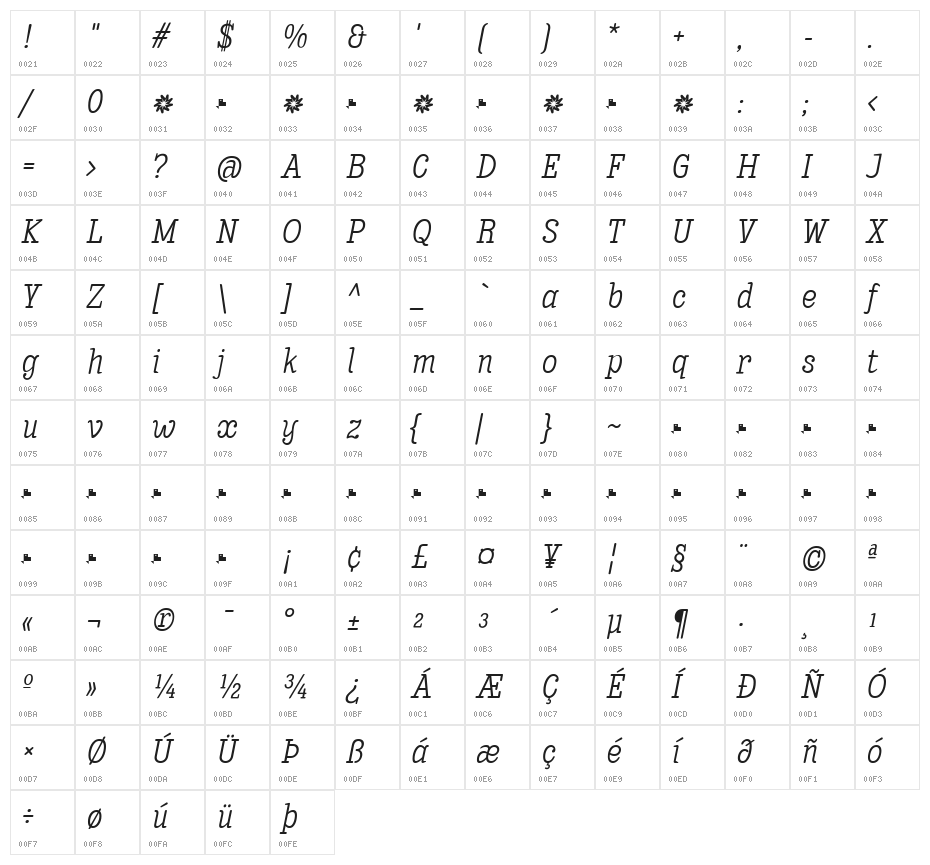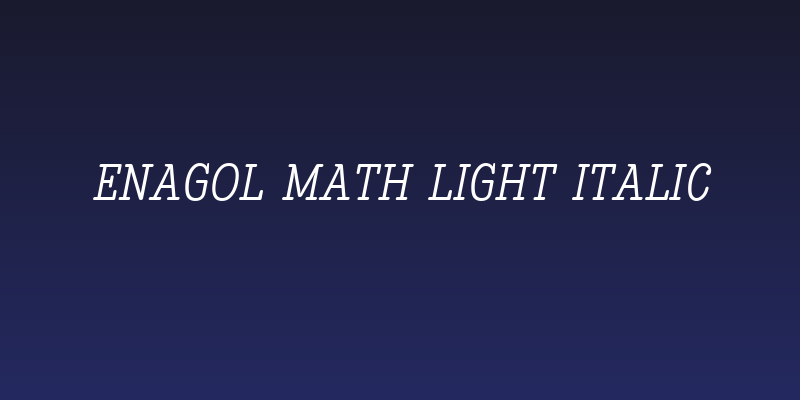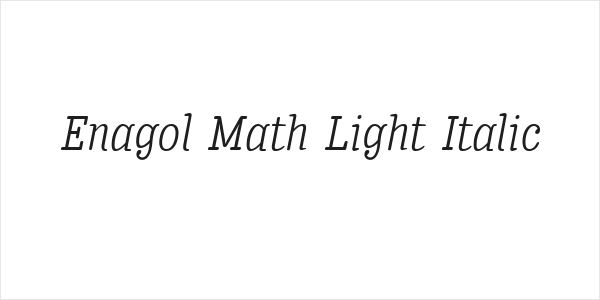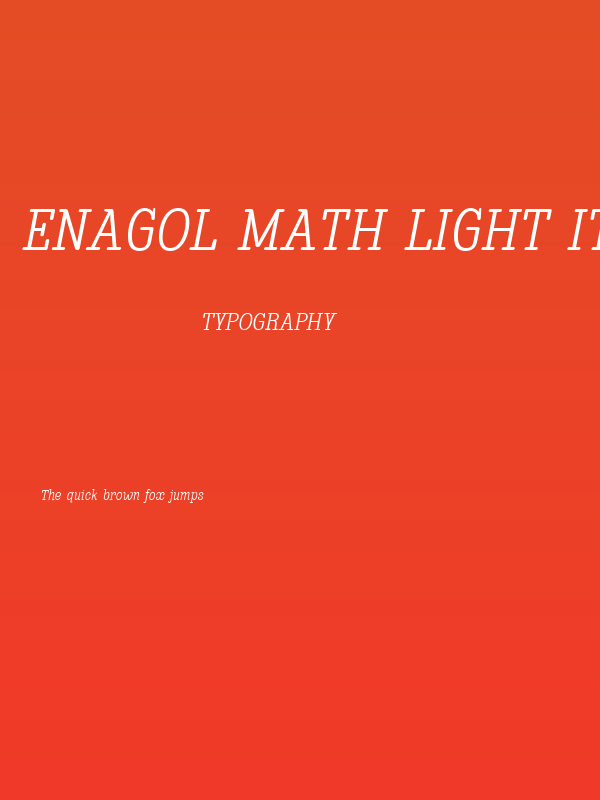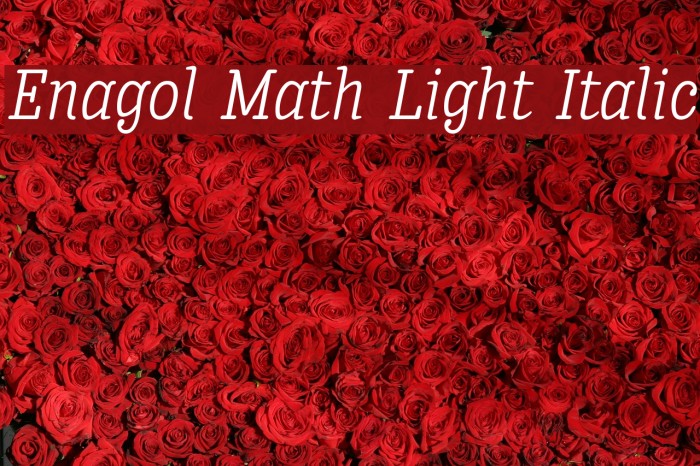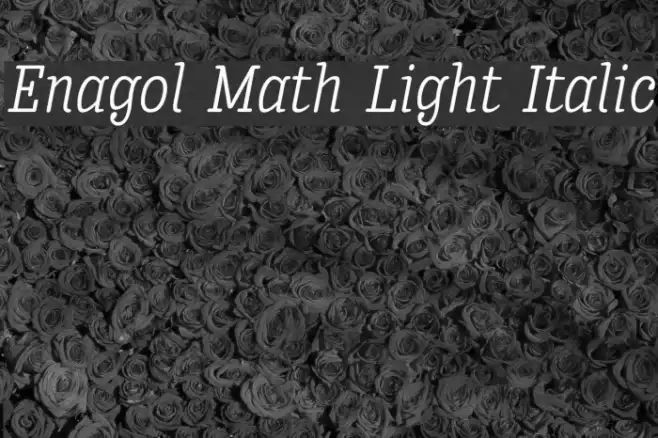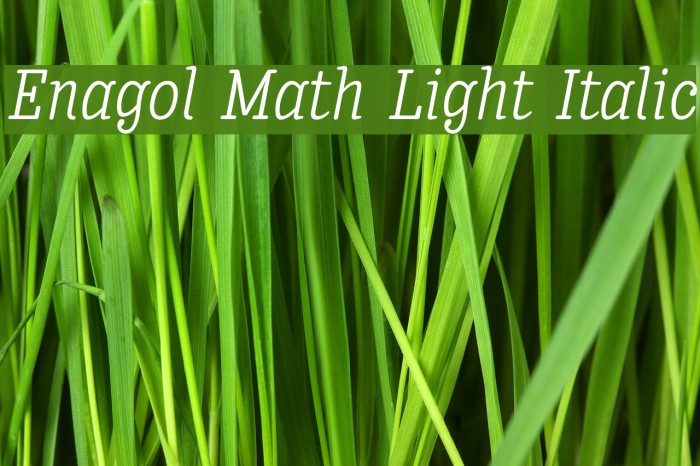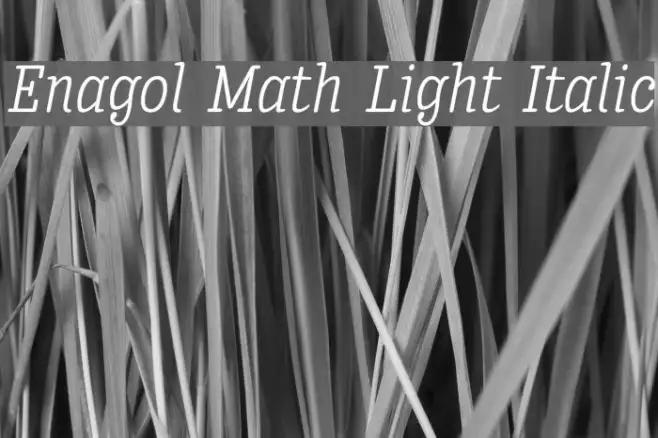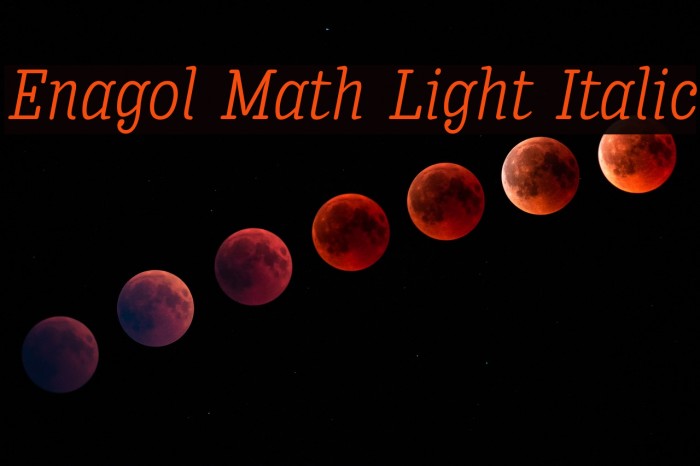
Enagol Math Light Italic Font
Enagol Math Light Italic Description
This font features a classic serif style with a light and elegant touch. The italicized form adds a sense of movement and sophistication, making it suitable for formal and refined applications. The characters are well-proportioned, with smooth curves and a slight slant that enhances readability while maintaining a stylish appearance. The numerals and special characters are consistent with the overall design, ensuring a cohesive look across all text elements. This font is ideal for projects that require a touch of elegance and tradition.
| Proposed Projects | Ideal for wedding invitations, formal documents, elegant branding, and editorial design. |